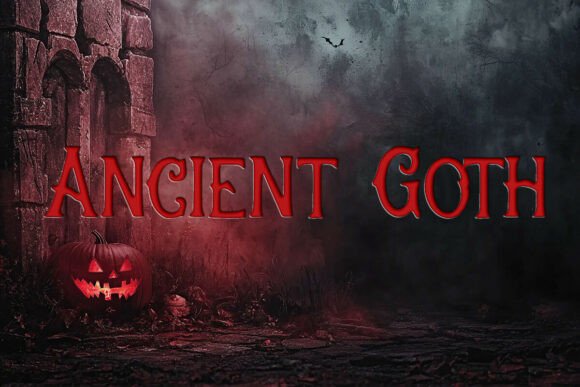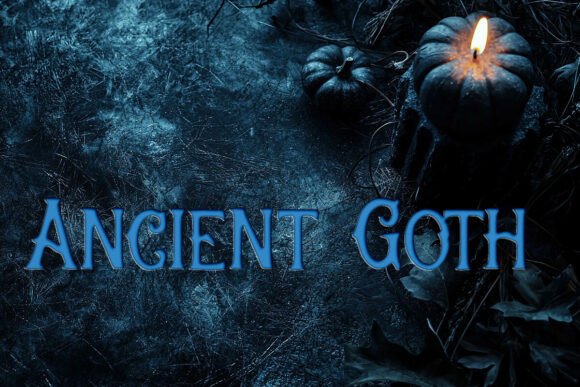
Discover the Timeless Charm of the Ancient Goth Font
I’ll never forget the design project that led me to discover the Ancient Goth font. I was working on a branding initiative for a client who wanted a vintage, mystical feel. I spent hours scouring font libraries, but nothing seemed quite right. That was until I stumbled upon the Ancient Goth font. Its unique blend of Gothic flair and ancient charm instantly captured the essence of my client’s vision. I knew right then and there that I had found the perfect fit.
• ✅ Unique and distinctive style that’s sure to turn heads
• ✅ Highly versatile and adaptable to various design projects
• ✅ Elegant and sophisticated, with a touch of antiquity
• ✅ Easy to read and understand, even in smaller font sizes
A Few Quirks to Keep in Mind 🤔
• ⚠️ Some characters may require manual kerning for optimal spacing
• ⚠️ Limited support for non-English languages
The Story Behind Ancient Goth: A Designer Inspiration
The Ancient Goth font was inspired by the ancient civilizations of Europe, particularly the Gothic and Romanesque styles. The designer sought to create a font that would evoke the mystery and grandeur of these bygone eras, while still being legible and versatile. The result is a font that’s both timeless and captivating.
Q: What type of projects is the Ancient Goth font best suited for?
A: The Ancient Goth font is highly versatile and can be used for a wide range of projects, from branding and advertising to greeting cards and social media graphics.
Q: Is the Ancient Goth font available in multiple languages?
A: The Ancient Goth font has limited support for non-English languages. Please check the font’s documentation for specific details on language support.